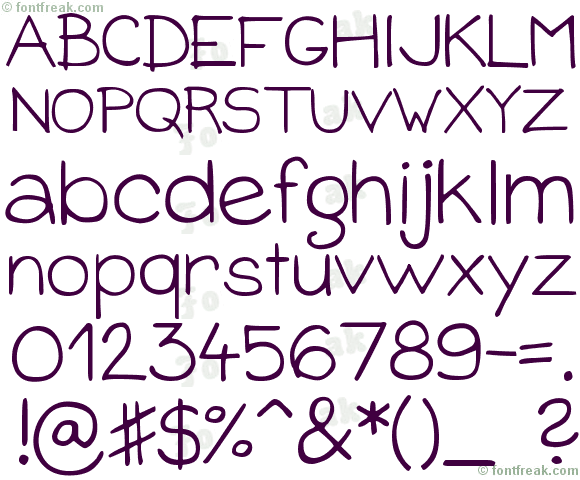
DJB BABY BUMP is a charming handwritten typeface designed by Darcy Baldwin that falls under the decorative category. This font captures a playful essence, characterized by its soft, rounded strokes and a casual, friendly appearance. The stroke weight is consistent, providing a harmonious balance that enhances legibility while maintaining its whimsical flair. The spacing between the letters is generously set, allowing for an airy feel that makes each character easily distinguishable, further contributing to its approachable nature.
The versatility of DJB BABY BUMP makes it an excellent choice for a variety of creative projects. It shines particularly in contexts such as children’s birthday invitations, where its fun and lighthearted characteristics evoke joy and excitement. It also works beautifully for playful branding in small businesses, such as cafes or boutiques, where a warm and inviting atmosphere is desired. Additionally, this font can be effectively utilized in greeting cards, adding a personal touch to messages of celebration and affection. Content creators will find it perfect for social media graphics, where eye-catching text is crucial to engage audiences.
What sets the DJB BABY BUMP font apart is its ability to convey warmth and playfulness while remaining highly legible. Its unique character makes it a delightful addition to any design project, ensuring that your content stands out and resonates with your audience. For those seeking a font that embodies both charm and usability, DJB BABY BUMP is an excellent choice.